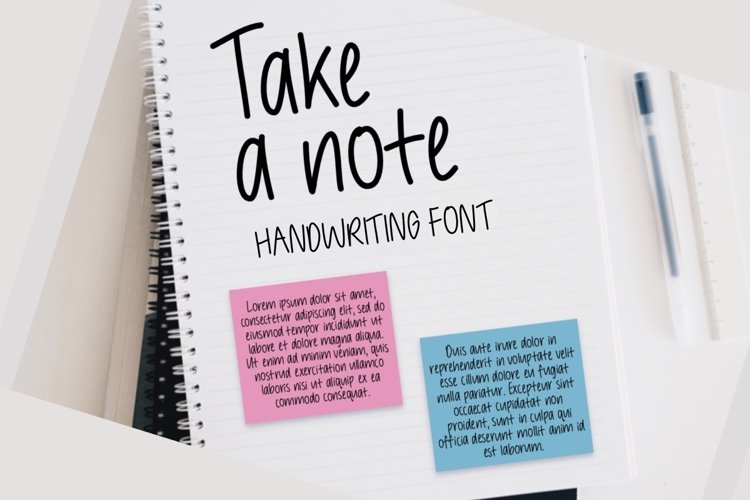
Notebooks handwritten font
Take a Note handwriting is a simple handwritten font. This font includes English characters, accented characters, numbers, standard punctuations. You can use this font in various projects — greeting cards, logos, branding, invitations, banners, titles, headlines, quotes, decorations and much more!